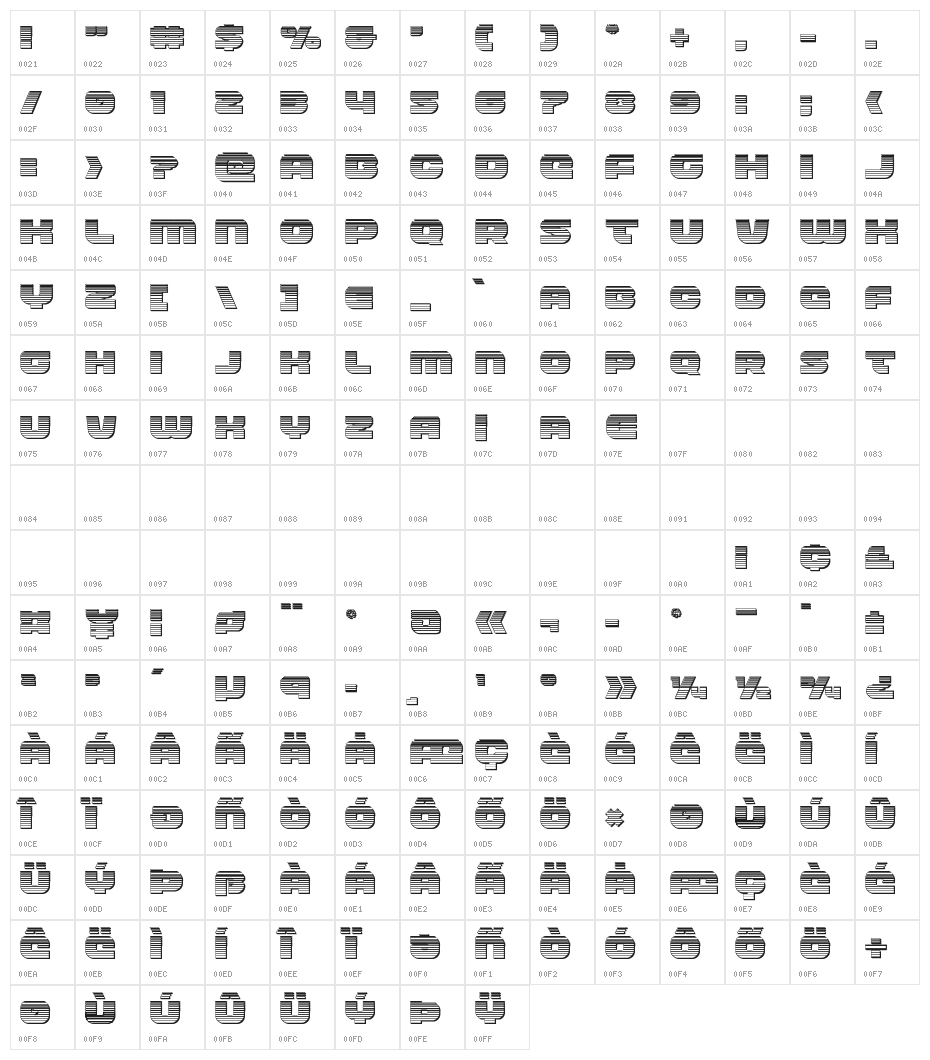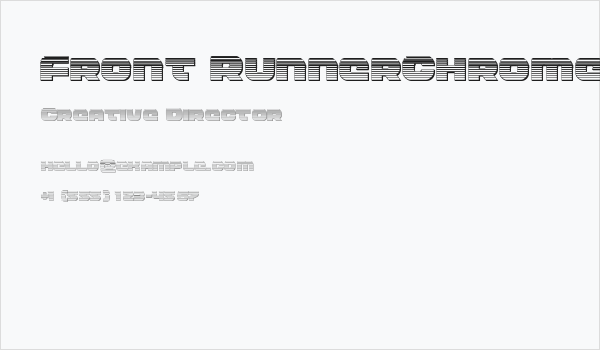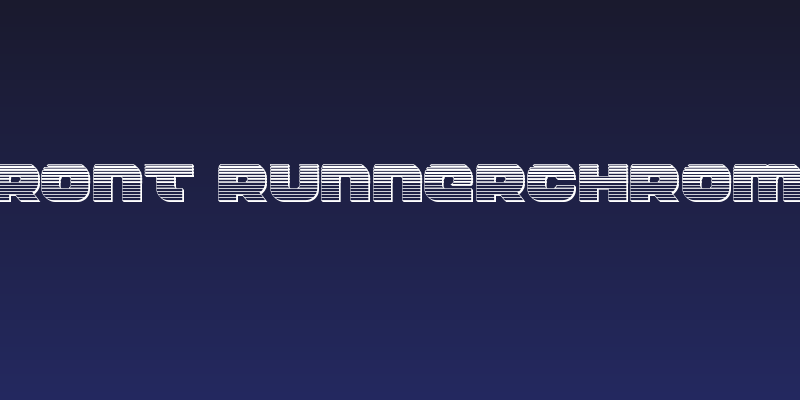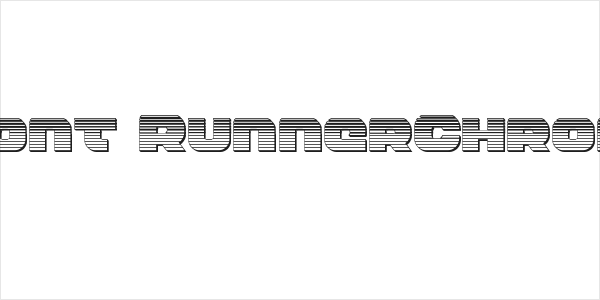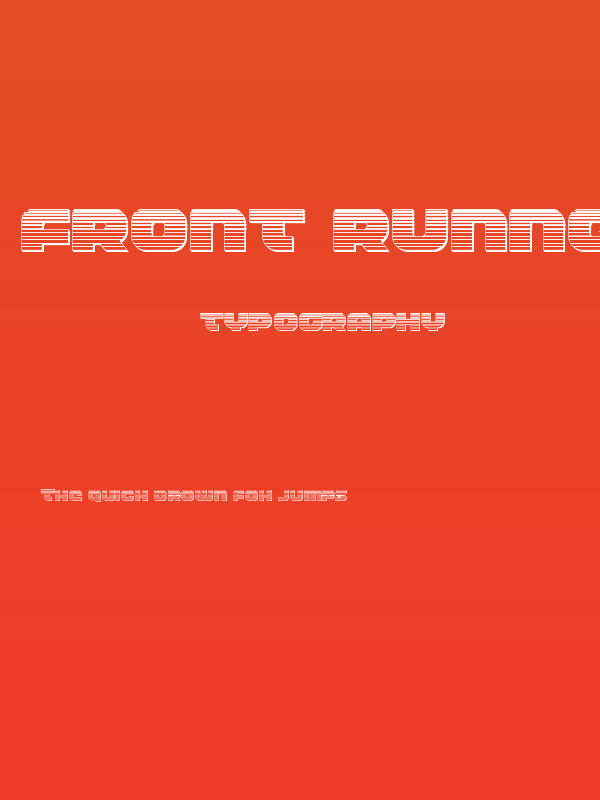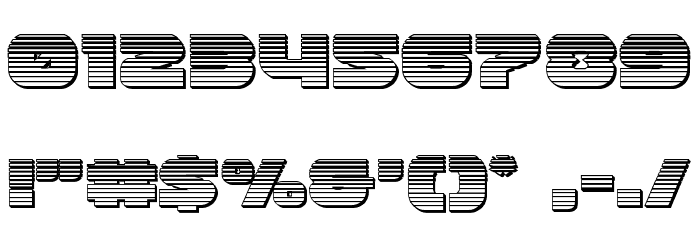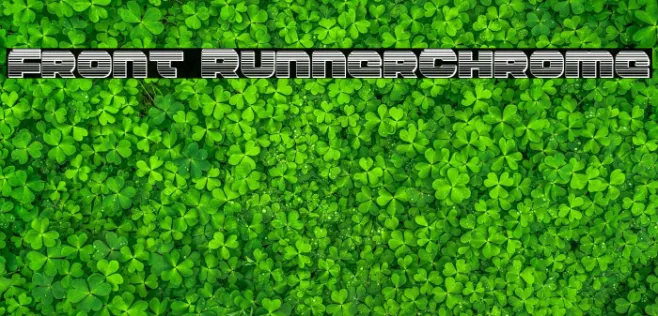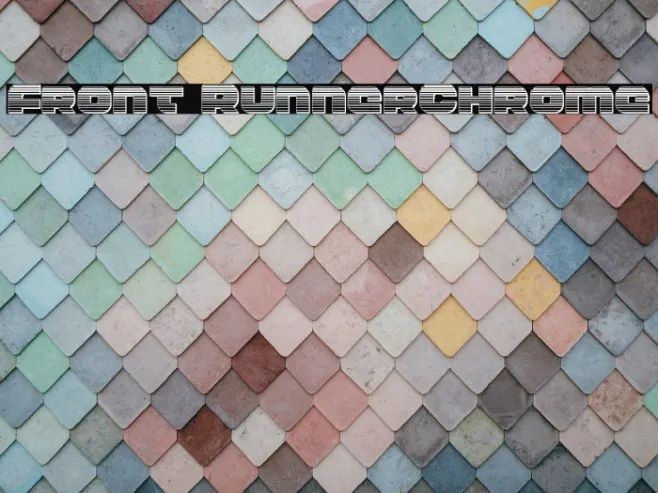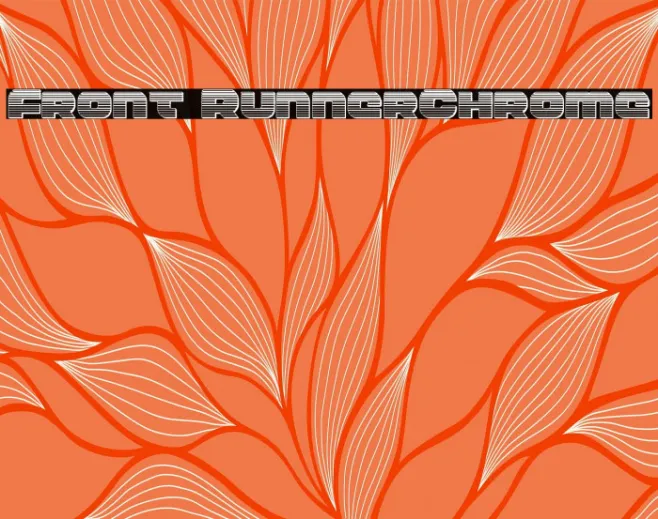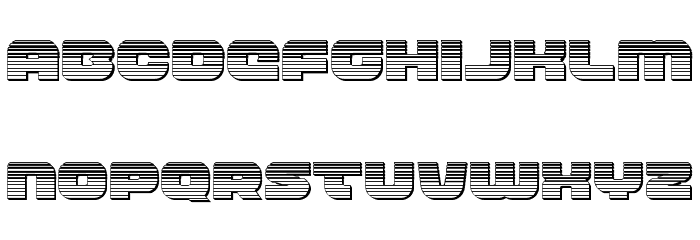
Front RunnerChrome Font
Front RunnerChrome Description
This font features a bold, geometric design with a distinct striped pattern running horizontally across each character. The uppercase and lowercase letters maintain a consistent width, creating a uniform appearance. The numbers and special characters follow the same design principles, ensuring a cohesive look throughout. The font's style is eye-catching and modern, making it suitable for projects that require a strong visual impact. Its unique pattern adds a layer of depth and complexity, making it ideal for creative and artistic applications.
| Proposed Projects | Ideal for branding, poster design, album covers, and any project needing a bold, modern aesthetic. |